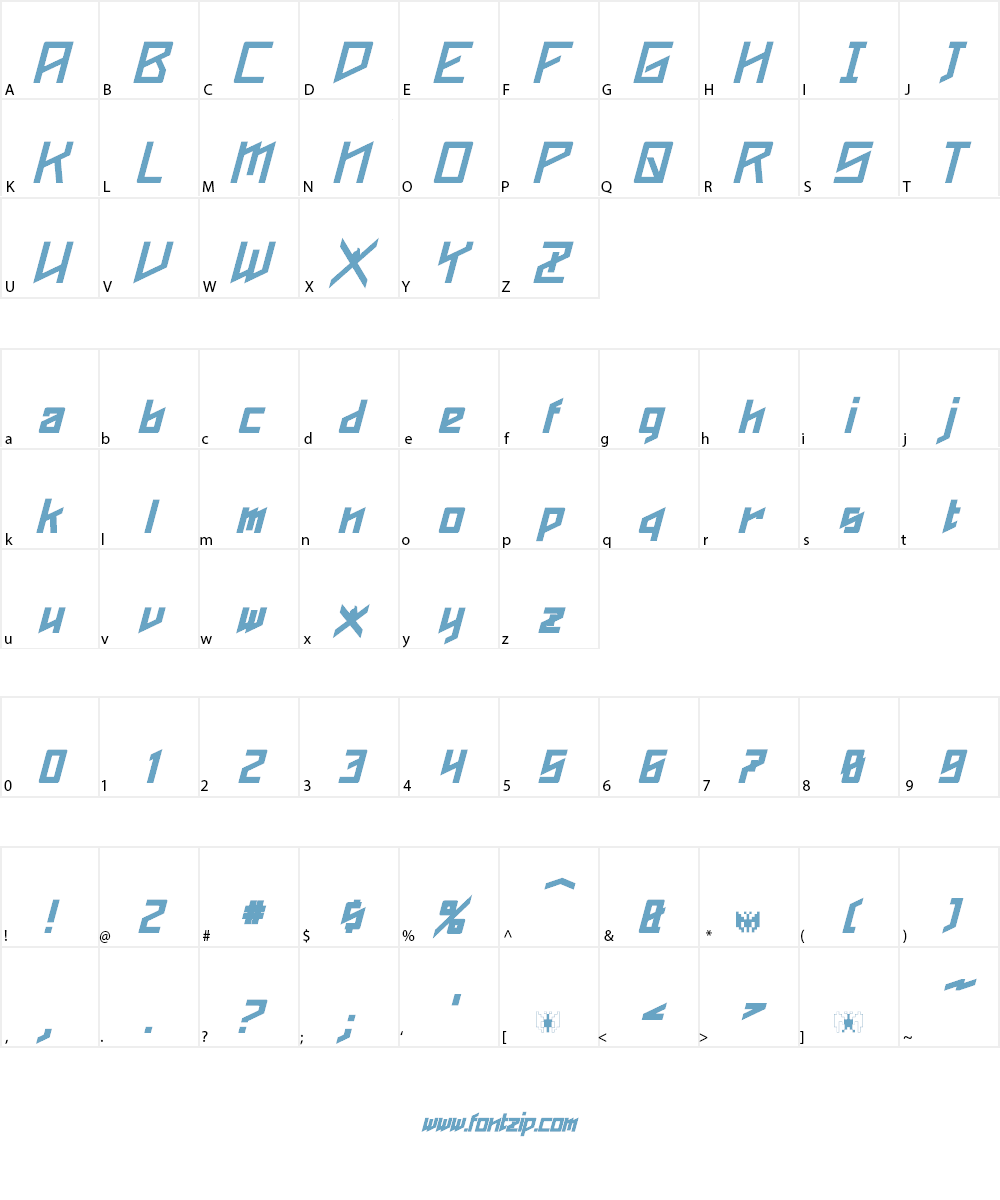
Based on the logo and main sprites of Centuri's videogame classic "Phoenix". Includes full alphabet and a handful of special 'sprite' characters. Includes italic version.